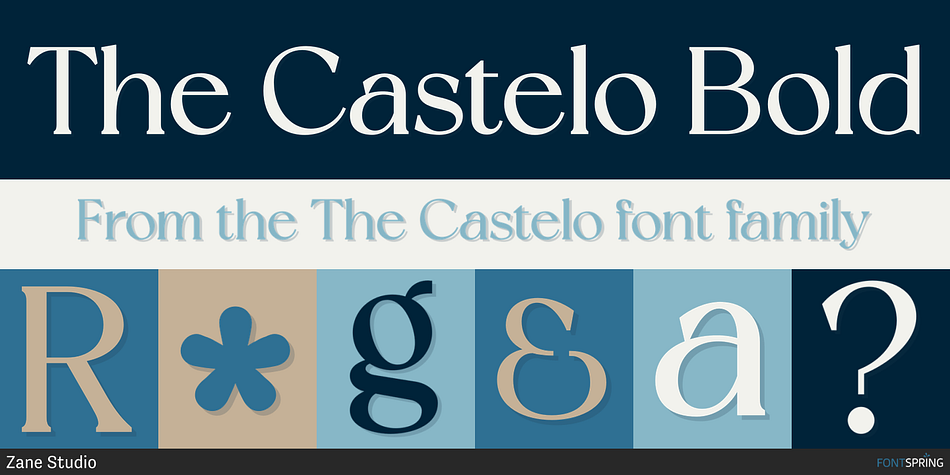
The Castelo Bold
The Castelo is a display serif font family. This typeface has four styles and was published by Zane Studio.
The Castelo is a unique and very elegant font for brand and logo designs.
Based on my experience as a graphic designer working in many companies, I am often asked to design a logo with a unique style but with an elegant shape. So, I tried brainstorming and came up with this font to get ideas out. It is suitable for BRANDING and LOGO DESIGN. You will get a classy, elegant, and of course unique logo with this font.